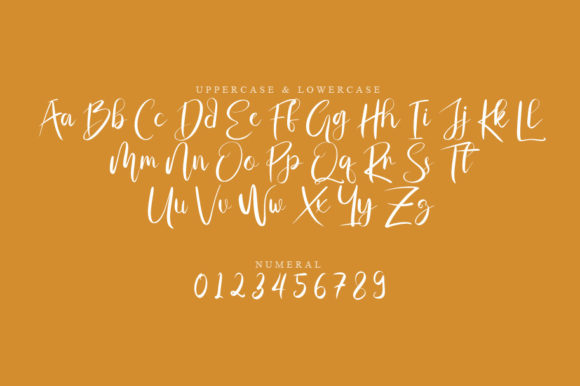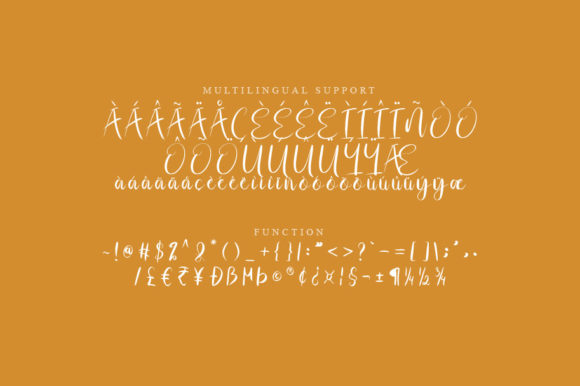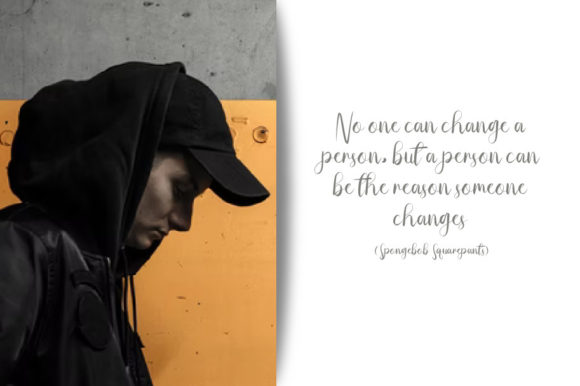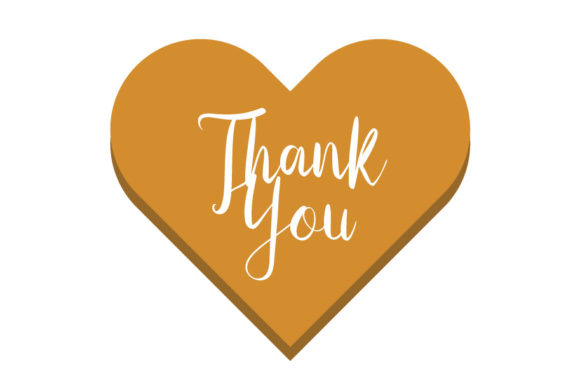
Mysil Script Font
About Mysil Script Font
Mysil Script is a lovely and timeless handwritten font. It is the best choice for creating eye catching logos, branding and quotes. Every letter has a unique and beautiful touch, which will make your design come alive!